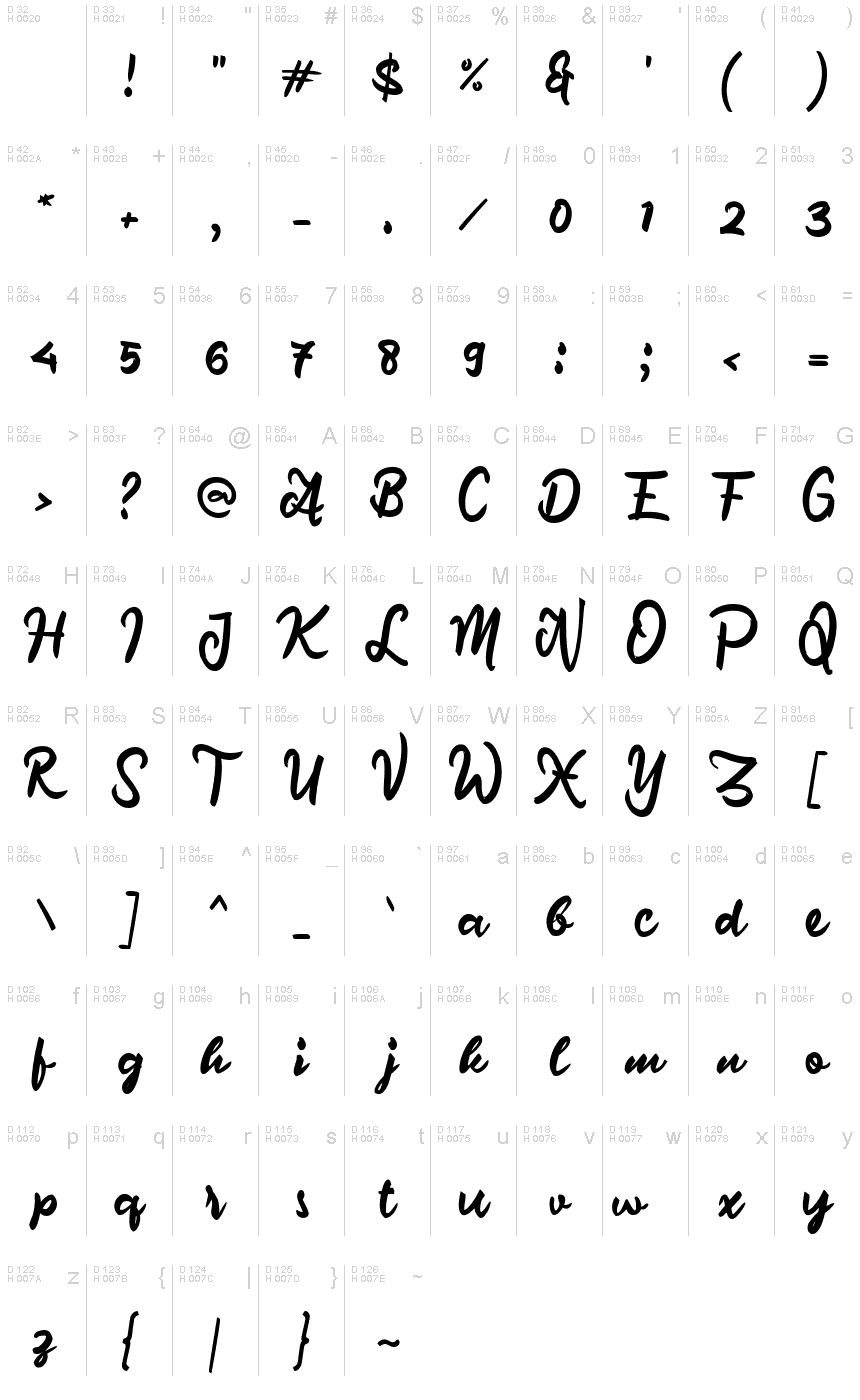
Delusi Script
The Delusi Script font is a bold brush style font, lovingly designed by Wahyu Eka Prasetya. It's perfect for creative projects like invitations, posters, logos and social media posts. Give it a try and make something beautiful!